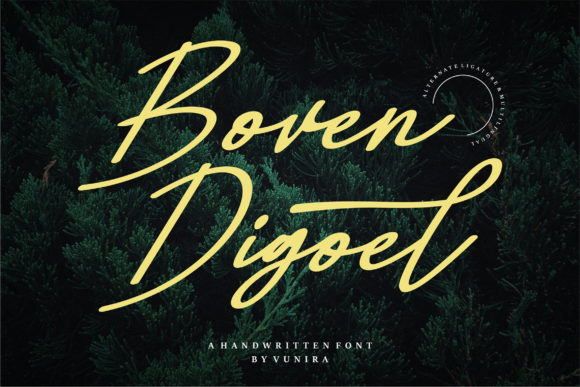
Boven Digoel Font: Elegant Script for Editorial Design
Selecting Boven Digoel for Lifestyle Blog Headers and Branding
When I began redesigning the visual identity for a slow-living editorial project, finding the right typeface was less about decoration and more about establishing an immediate emotional connection with the reader. Boven Digoel emerged as the definitive choice among Script Handwritten Fonts because it balances artistic expression with the clarity required for digital publishing. In this specific layout test, I needed a header font that felt personal and intimate, yet possessed enough structural integrity to serve as a recurring brand element across dozens of articles. The distinct rhythm of Boven Digoel provided that anchor, transforming standard post titles into inviting entry points that encouraged deeper reading rather than passive scrolling.
The decision to use this flowing handwritten font was driven by its elegant touch, which perfectly complemented the muted photography and minimalist whitespace of the blog’s new aesthetic. Unlike many display fonts that sacrifice legibility for flair, Boven Digoel maintains open counters and consistent stroke widths that remain crisp on high-resolution screens. This is crucial for modern typography where mobile responsiveness dictates design success. When applied to the main navigation and category labels, the font created a cohesive narrative thread, signaling to visitors that the content within was curated, thoughtful, and crafted with intention. It proved that a premium font could be both a stylistic signature and a functional user interface element.
Typography Pairing Strategies for Recipe Ebooks and Digital Guides
Integrating Boven Digoel into long-form content like recipe ebooks or coaching workbooks requires careful consideration of font pairing to maintain readability while preserving the typeface's timeless style. During a recent project involving a seasonal baking guide, I utilized Boven Digoel exclusively for chapter openers, pull quotes, and sidebar annotations, pairing it with a clean, neutral sans serif font for the instructional body copy. This contrast is essential; the script font acts as a visual pause, guiding the reader’s eye through dense information without causing fatigue. The handwritten nature of the display font adds warmth to technical instructions, making the ebook feel like a cherished family heirloom rather than a sterile manual.
For digital products intended for tablet reading or PDF export, the scale of Boven Digoel must be adjusted generously to honor its intricate details. In my testing, setting the script at least 1.5 times larger than the body text ensured that the elegant ligatures and swashes remained distinct even when zoomed out. This hierarchy supports the reader's journey, using the script to signpost key moments in the content. Whether highlighting a "Chef’s Tip" in a culinary guide or a "Mindfulness Prompt" in a wellness workbook, the font serves as a gentle nudge that breaks up text blocks and re-engages attention. The result is a publication that feels professionally typeset yet deeply human, leveraging the best attributes of creative fonts to enhance the utility of the document.
Applying Boven Digoel to Wedding Stationery and Print Layouts
There is perhaps no better test for a script typeface than the exacting standards of wedding stationery, where Boven Digoel demonstrates its capacity for creating spectacular, timeless designs. While working on a suite of invitation templates for independent designers, I found that this font bridges the gap between traditional calligraphy and contemporary graphic design. Its flowing lines possess a romantic fluidity that suits formal occasions, yet the underlying structure prevents it from looking dated or overly ornate. For editorial designers creating printable planners or wedding guides, this versatility means the font can transition seamlessly from a grand invitation header to delicate table numbers or menu cards without losing its character.
In print applications, the tactile quality of Boven Digoel becomes even more pronounced. When testing proofs on textured cardstock, the ink spread actually enhanced the organic feel of the strokes, validating its description as a font with an elegant touch. However, designers must be mindful of tracking and leading; unlike rigid geometric fonts, this script requires breathing room to prevent characters from tangling. I recommend avoiding tight letter-spacing adjustments that might disrupt the natural connections between glyphs. Instead, allow the font’s built-in rhythm to dictate the spacing. This respect for the typeface’s original design ensures that whether it is used for a luxury brand identity or a DIY printable kit, the output remains sophisticated and legible.
Beyond licensing, technical preparation is key to maximizing the potential of Boven Digoel in professional workflows. Always inspect the included OpenType features before finalizing a layout; access to alternate characters, swashes, and ligatures can transform a standard headline into a bespoke logo treatment. In my own workflow, enabling standard ligatures prevented awkward collisions in common letter pairs, while stylistic alternates allowed me to customize the start and end of words for better compositional balance. Additionally, confirming multilingual support is vital if your publication serves a diverse audience or includes foreign language recipes and quotes. A truly timeless style is one that communicates effectively across boundaries, and ensuring your chosen typeface supports the necessary glyph sets is part of delivering a polished, inclusive reading experience.
Elevating Newsletter Graphics and Social Media Visuals
In the fast-paced environment of social media and email marketing, Boven Digoel serves as a powerful tool for stopping the scroll and establishing instant brand recognition. When designing graphics for a creator newsletter, I used this flowing handwritten font to overlay key takeaways onto lifestyle photography. The distinct personality of the typeface cut through the visual noise of crowded feeds, acting as a recognizable signal to subscribers. Unlike generic system fonts, Boven Digoel carries an inherent emotional weight that aligns with storytelling content. It transforms a simple quote card or announcement graphic into a piece of art that followers want to save and share, thereby extending the reach of the editorial message organically.
However, using such a detailed script in small-format graphics requires restraint. In my tests for Instagram stories and email subject line previews, I found that Boven Digoel works best when limited to three to five words. Longer phrases risk becoming illegible on mobile devices, undermining the user experience. The solution is to treat the font as an accent rather than a workhorse. Use it for the emotive hook—"Slow Down," "New Chapter," "With Love"—and rely on highly readable sans serif fonts for the logistical details like dates, links, and captions. This strategic application respects the viewer’s time while still delivering the aesthetic pleasure that makes the brand memorable. By treating Boven Digoel as a precious design element rather than a default setting, editors can create visuals that are both beautiful and functionally effective.